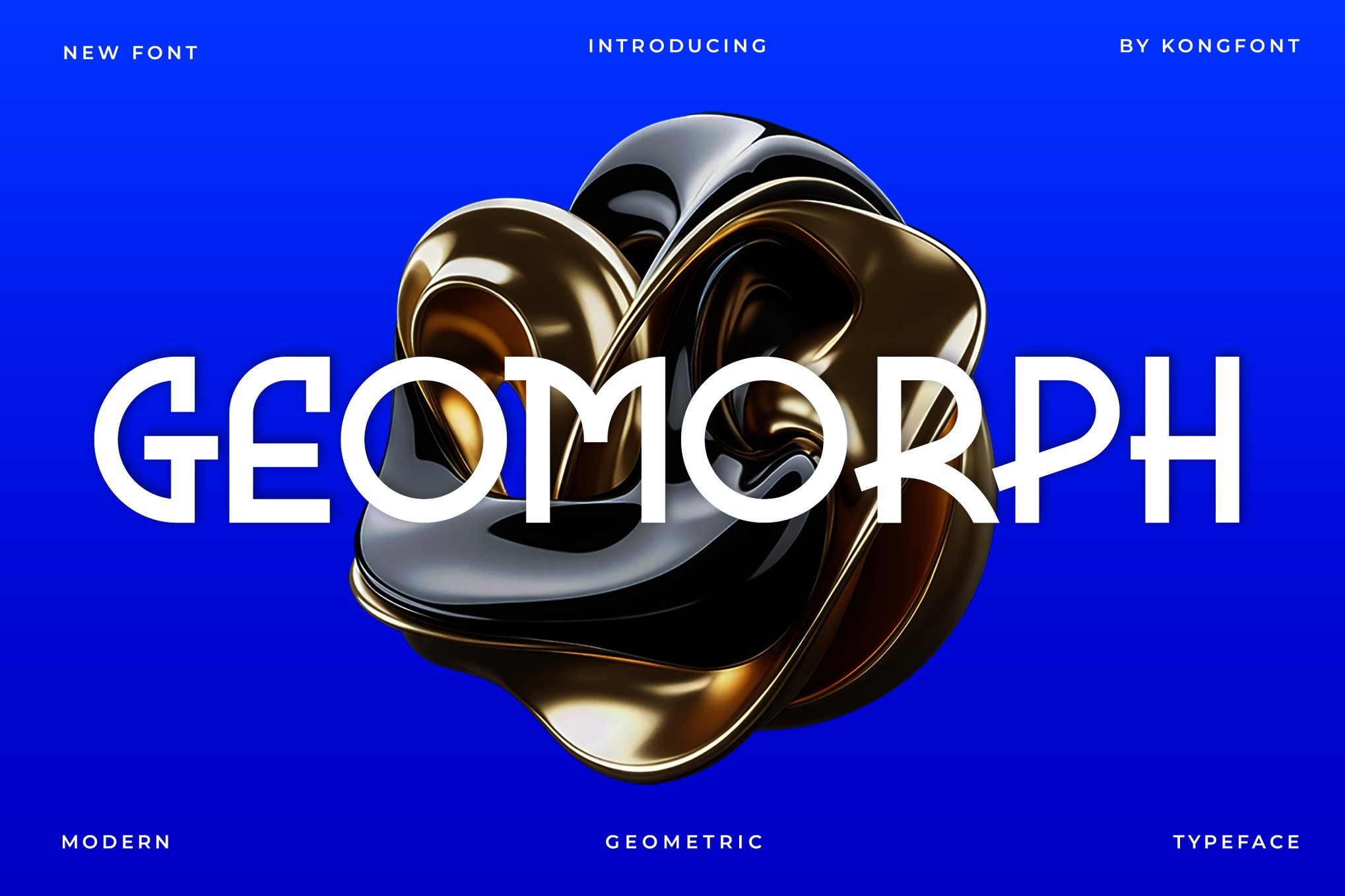
Geomorph Font
Geomorph Font a modern geometric typeface created to deliver clean structure, refined balance, and contemporary visual impact. Designed with sharp precision and minimalist aesthetics, Geomorph embraces the beauty of geometry through bold shapes, smooth curves, and consistent letter proportions making it an essential choice for designers who love clarity and modern simplicity.